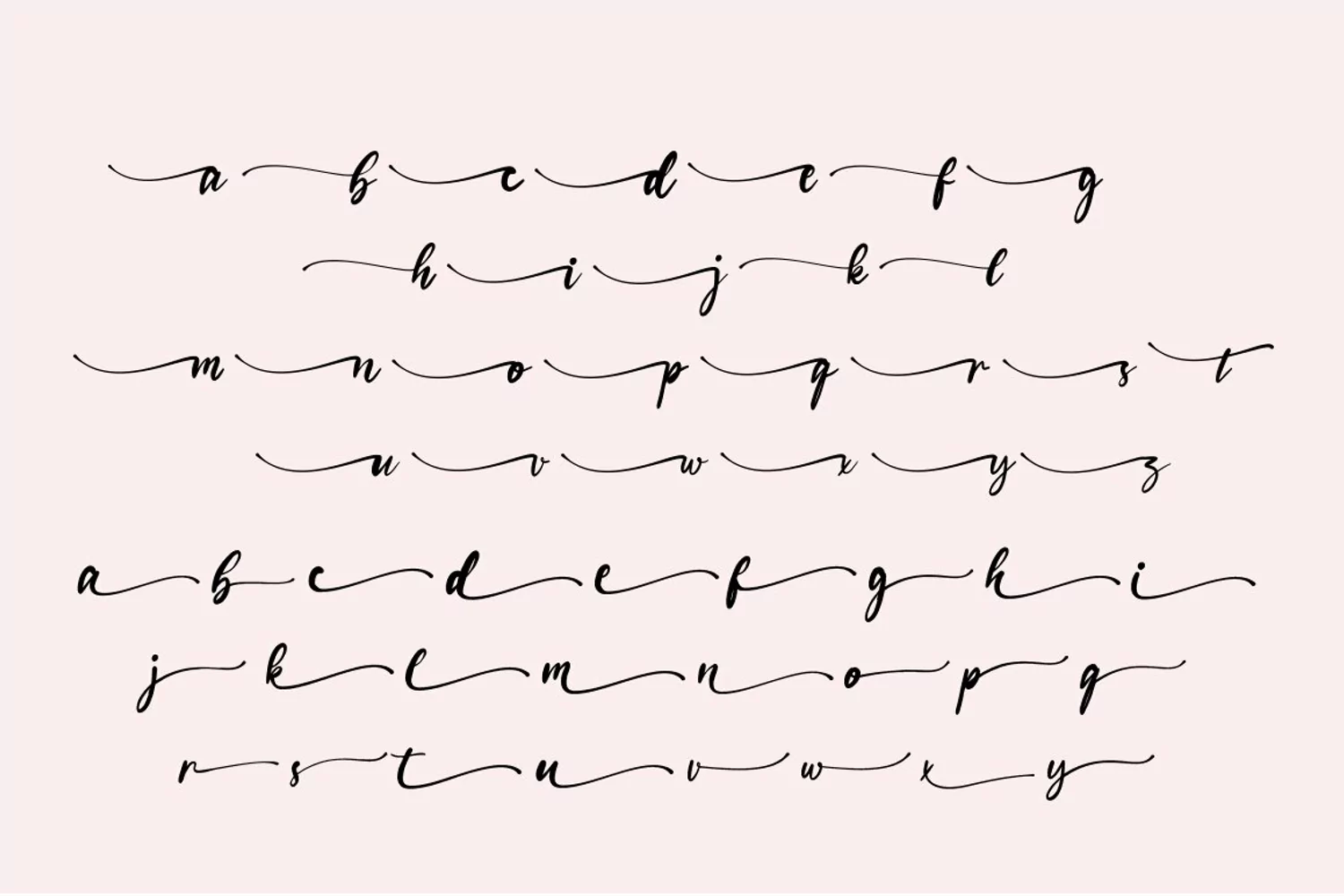
Hello.... Introducing Bohemian Script, style fresh and modern calligraphy script new. typeface attract interesting and so beautiful! Bohemian can be used in various applications such as Microsoft Word, corel draw, adobe illustrator, adobe photoshop. Bohemian also has some extra glyphs that will create the character of the more interesting font, and font is also suitable for making logos, invitations, greeting cards, quotes, posters and others. files are included Bohemian. OTF Bohemian. TTF so, let's get it! Thanks and have fun